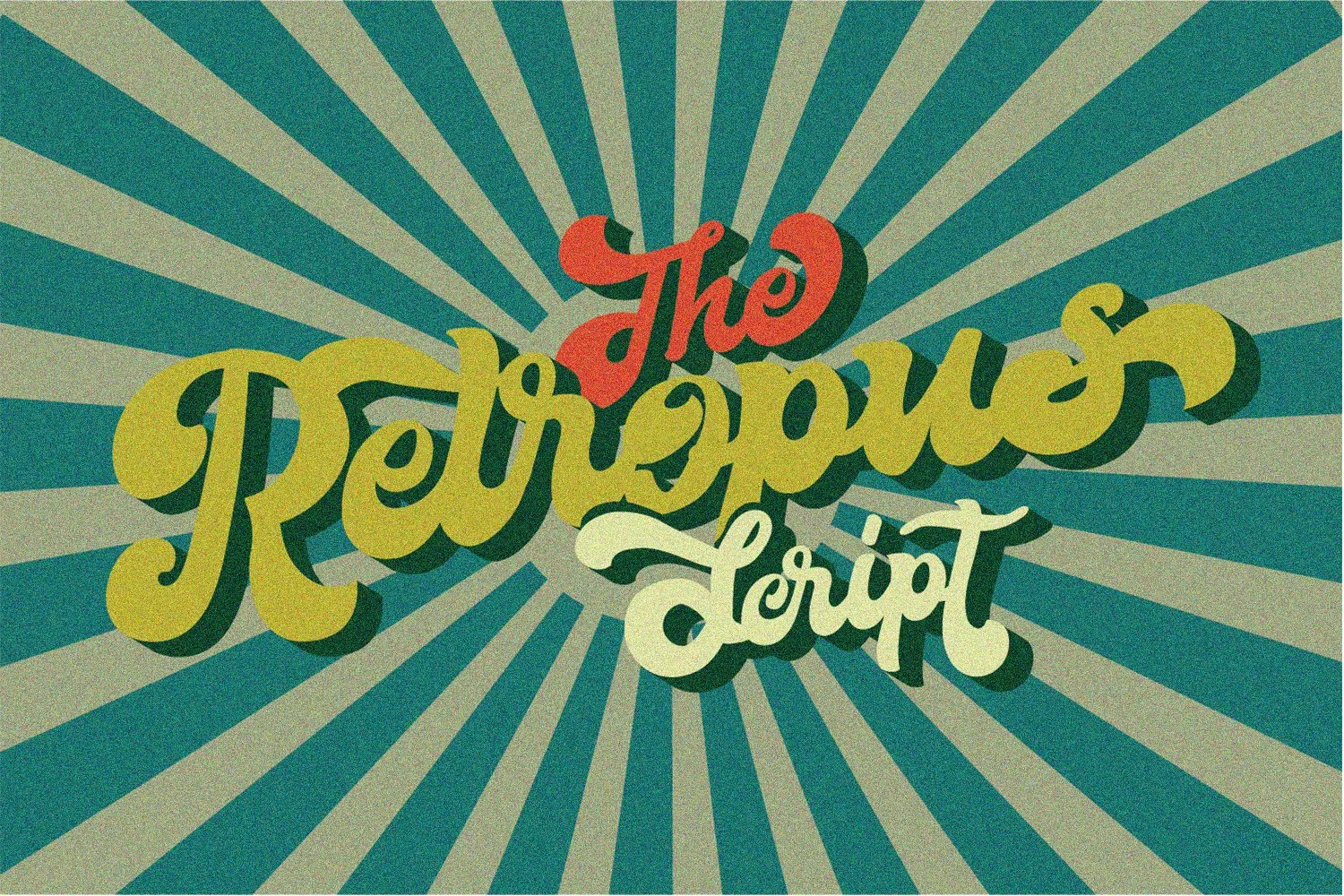
Mix it up with this fantastic retro hand drawn script font. Bring back the funk and make a big statement with The Retropus Font. Ideal for headings and titles and bodacious sublimation designs. In this download you get all of the usual goodies as well as multi language support.